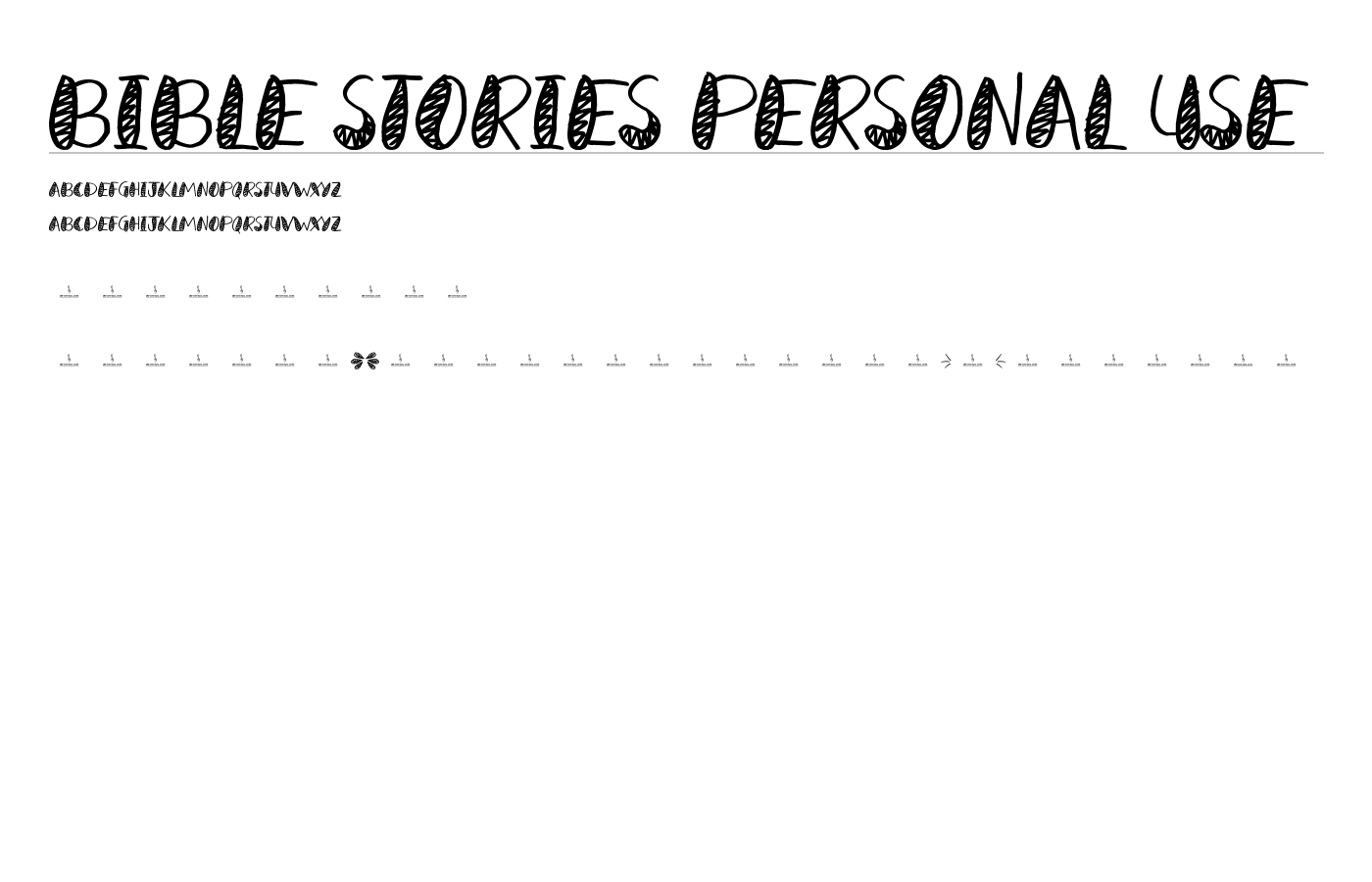
Bible Stories Personal Use is a playful and hand-drawn display font that features tall, narrow letterforms with fun, textured fill patterns, giving it a whimsical and childlike charm. Its casual, sketchy strokes make it ideal for creative projects aimed at children, storytelling, or informal settings where a friendly and approachable vibe is desired. This font works great for headlines, posters, and playful branding where a unique and expressive style can shine.
Bible Stories Personal Use Font
About Bible Stories Personal Use Font
| Font family | Bible Stories Personal Use Font |
| Designer | Jonathan S Harris |